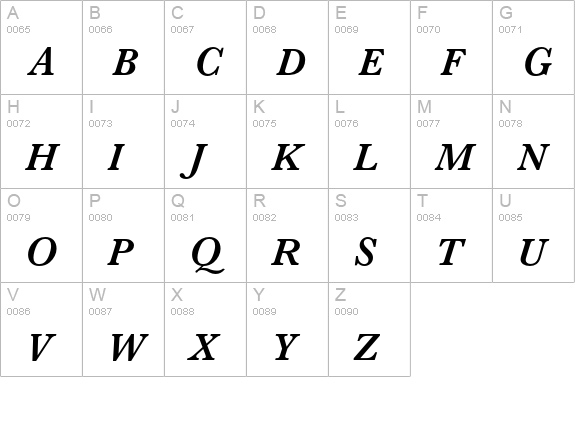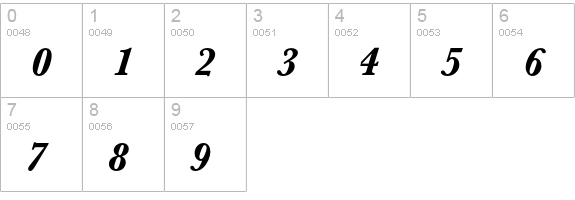
Baskerville Semi Bold Italic is a strong, high-contrast, italic variant in the Baskerville typeface family \xE2\x80\x94 well suited to headlines, attention-grabbing titles, and strong calls-to-action.
Baskerville Semi Bold Italic is a sophisticated and elegant font that exudes a sense of modernity and refinement. Its sleek and stylish design makes it perfect for adding a touch of class to any project. The italicized version of the font adds a touch of dynamism and flair, perfect for creating eye-catching headings or emphasizing important text. What sets Baskerville Semi Bold Italic apart is not only its timeless appeal but also its versatility. Whether you're designing a sleek corporate brochure, a stylish wedding invitation, or a modern website, this font is sure to elevate your design to the next level. And the best part? Baskerville Semi Bold Italic is freely available for download at FontsMarket.com. So you can easily access this premium font without breaking the bank. Don't miss out on the opportunity to enhance your designs with this exquisite typeface!